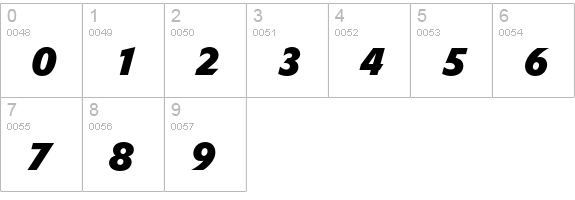
Delta Jaeger BQ Bold Italic is a strong, high-contrast, italic variant in the Delta typeface family \xE2\x80\x94 well suited to headlines, attention-grabbing titles, and strong calls-to-action.
Delta Jaeger BQ Bold Italic font is a striking and modern typeface that exudes confidence and sophistication. Its bold and italic design makes a powerful statement, perfect for headlines, titles, and branding projects. The sleek and dynamic curves of this font add a touch of elegance to any design. This font is not only visually appealing but also versatile, suitable for a wide range of design applications. Whether you are working on a poster, website, or logo, Delta Jaeger BQ Bold Italic font will make your text stand out and command attention. The best part is that this font is available for free download at FontsMarket.com. You can easily access this stylish and impactful typeface to elevate your designs without any cost. Don't miss out on the opportunity to enhance your projects with Delta Jaeger BQ Bold Italic font today!